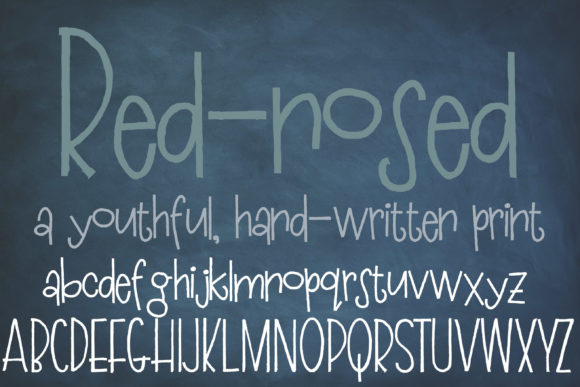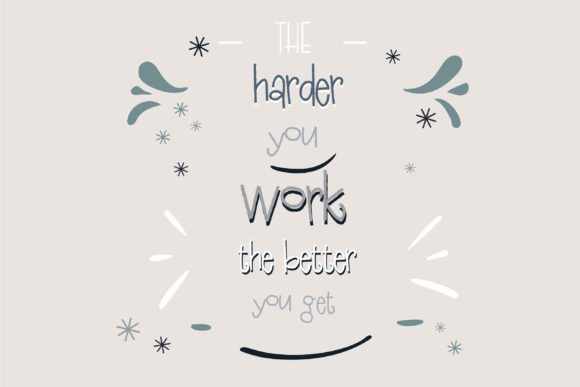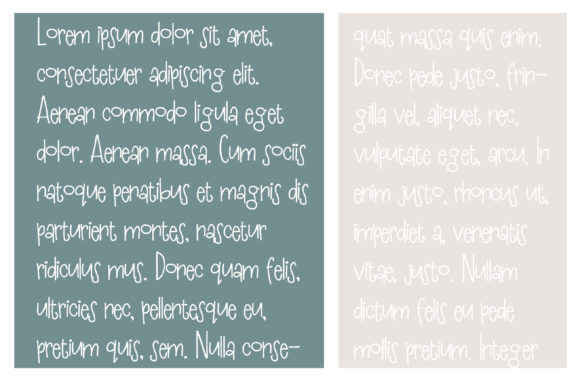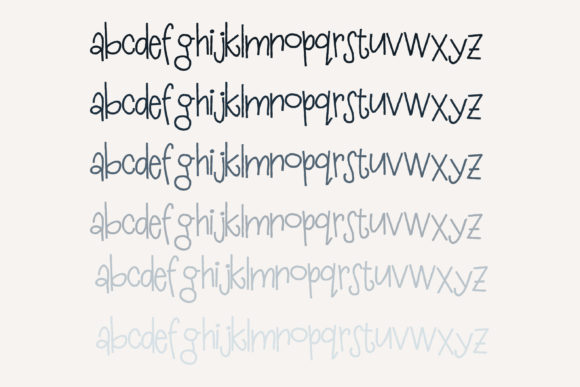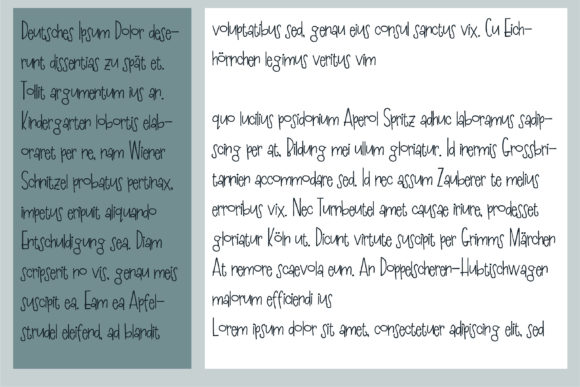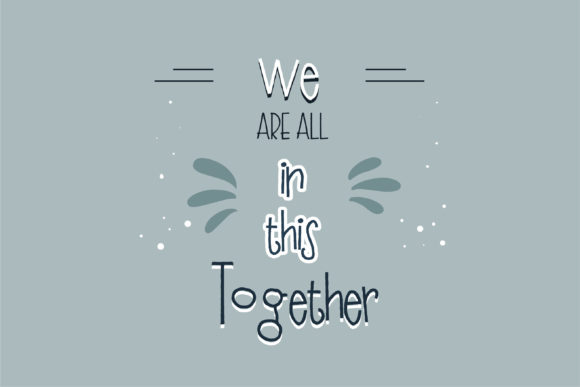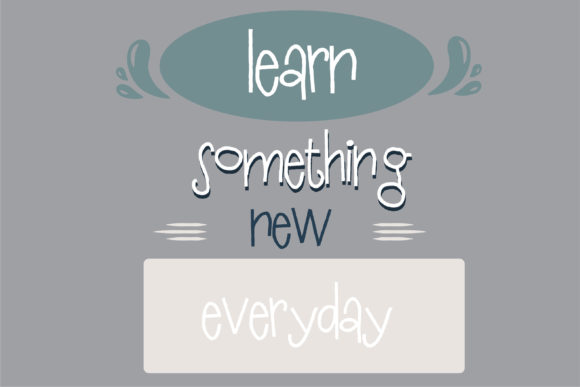
Red-Nosed Font
About Red-Nosed Font
“Red-Nosed” is a font characterized by its beautiful and well-balanced characters, making it a versatile choice that complements a wide range of design projects. By incorporating “Red-Nosed” into your creative ideas, you’re likely to observe how it adds vibrancy and life to your projects, bringing them to life in a captivating way.
The allure of “Red-Nosed” lies in its ability to infuse your designs with a sense of balance and visual appeal. Its carefully crafted characters contribute to an aesthetic that resonates with versatility and creativity. This font’s adaptability ensures that it seamlessly integrates into various design contexts.
Whether you’re aiming to enhance the visual impact of your branding materials, create captivating graphics, or craft engaging content, “Red-Nosed” becomes a valuable tool. Its distinct design can elevate the overall appeal of your projects, making them stand out with a touch of creative energy.
Incorporating “Red-Nosed” into your design endeavors means embracing its beautiful and well-balanced attributes. By utilizing its unique charm, you’re enhancing the visual allure of your work and ensuring that your designs resonate effectively with your intended audience. This font becomes a dependable resource for infusing your creations with a sense of vibrancy and creativity, allowing them to come alive with dynamic visual impact.